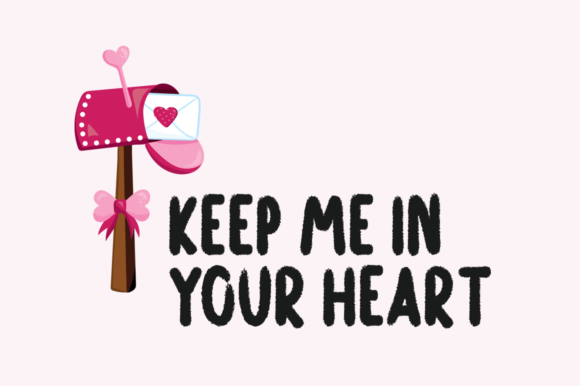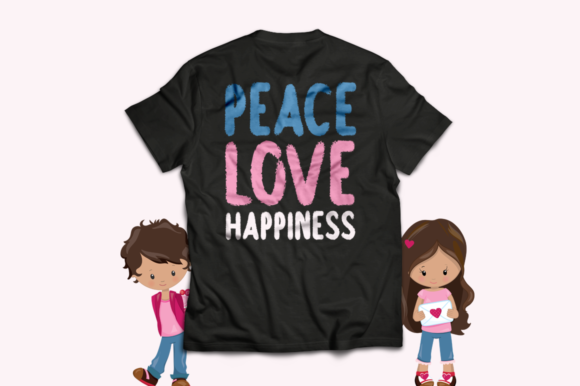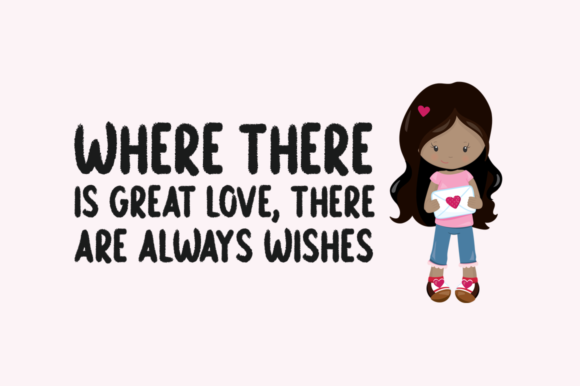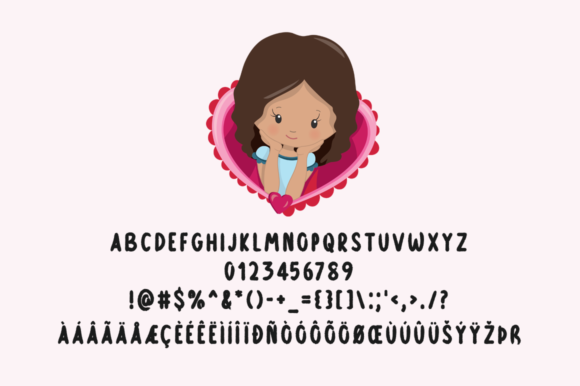
Introduction to Keep Me Font
Do you ever find yourself in a creative rut, staring at a blank canvas, and wondering what will spark your next great idea? For designers, this moment is all too familiar. But what if you had the perfect tool to break through that barrier and bring your vision to life? Enter the Keep Me Font, a fresh and modern display font that’s about to become your new best friend.
With its sleek design and versatility, the Keep Me Font is the perfect addition to any creative project. Whether you’re designing a logo, a t-shirt, or a website header, this high-quality font is sure to make a statement. And the best part? It’s available for a free download, making it an invaluable resource for designers of all levels.
- Designed with a unique, modern aesthetic, setting it apart from other fonts in the market.
- High-resolution design, ideal for printing and digital applications, including logos, branding materials, and creative projects.
Honest Review: Keep Me Font
I recently had the chance to work with the Keep Me Font, and I must say, it’s been a game-changer for my creative projects. The level of detail and attention to design is truly impressive.
- What works well: ✨ The font’s ability to work seamlessly with transparent backgrounds is a huge plus. It’s perfect for projects that require a level of sophistication and elegance.
- What works well: ✨ The font’s versatility is also worth mentioning. It can be used for a wide range of creative projects, from logos to typography-based designs.
Overall, I’m thoroughly impressed with the Keep Me Font. It’s a high-quality design resource that’s perfect for any creative project. With its versatility, elegant design, and free download option, it’s a must-have for any designer.
Keep Me Font is ideal for creating eye-catching titles, headings, and body text for presentations, social media graphics, and marketing materials.